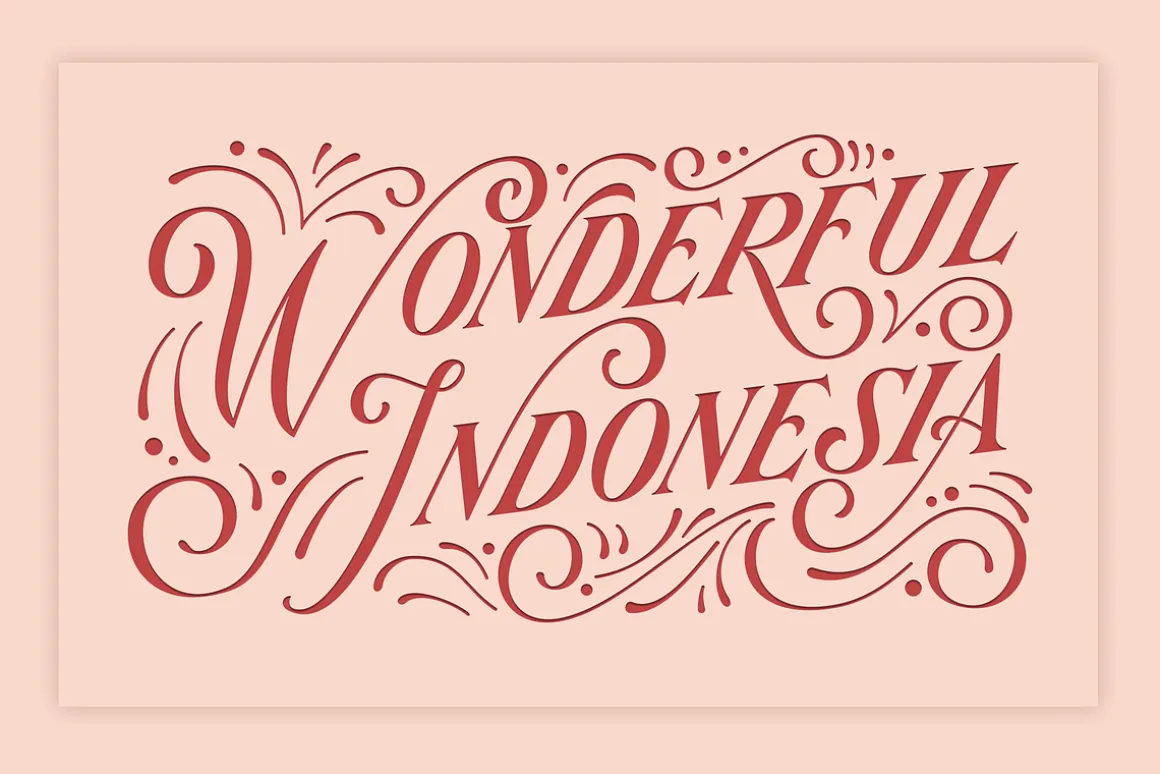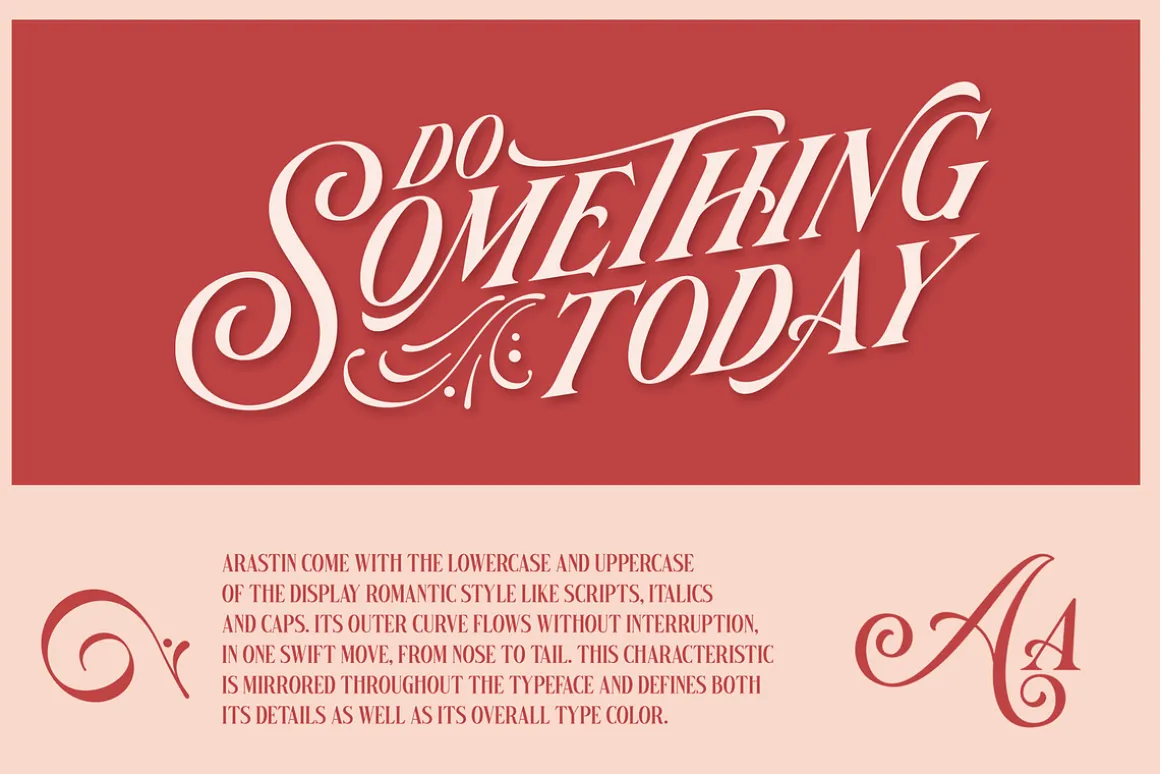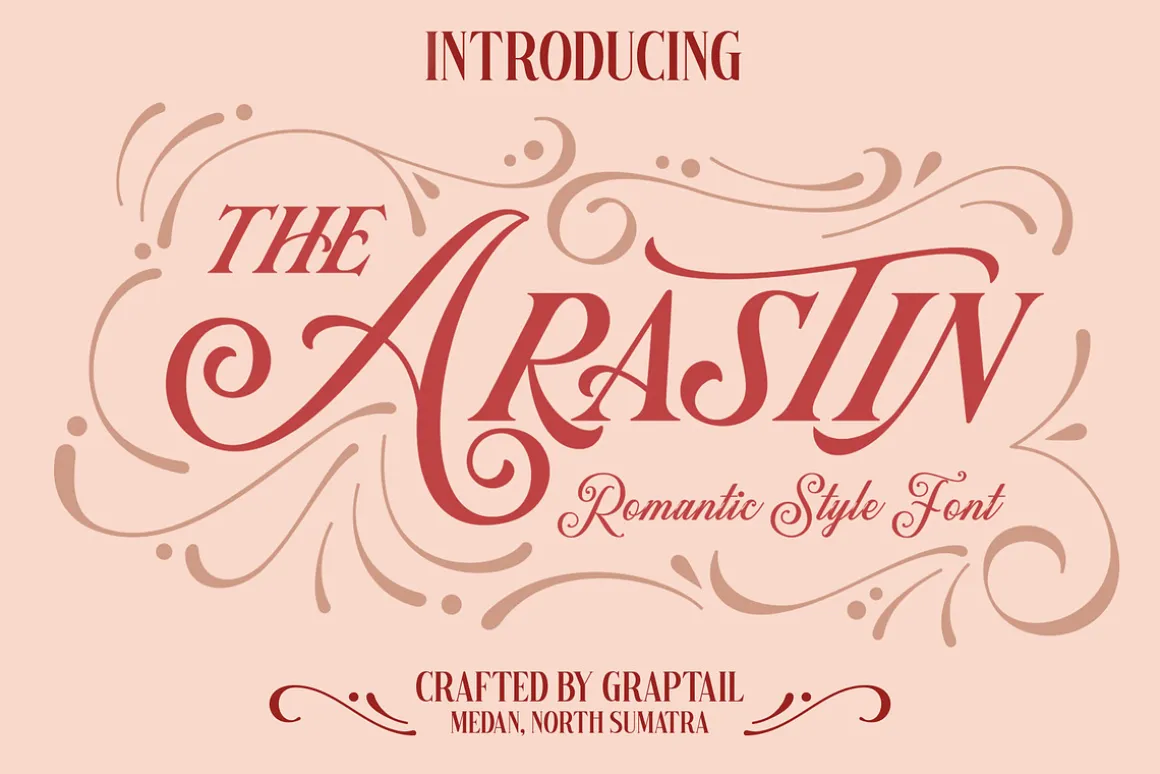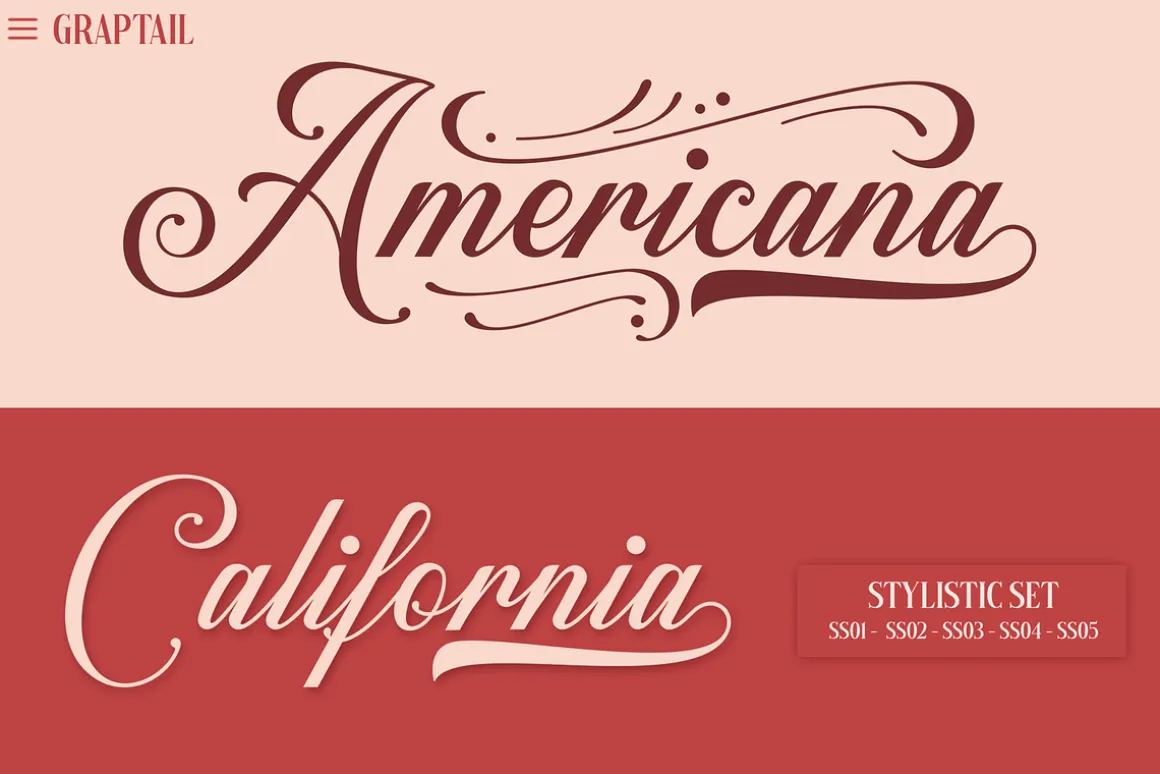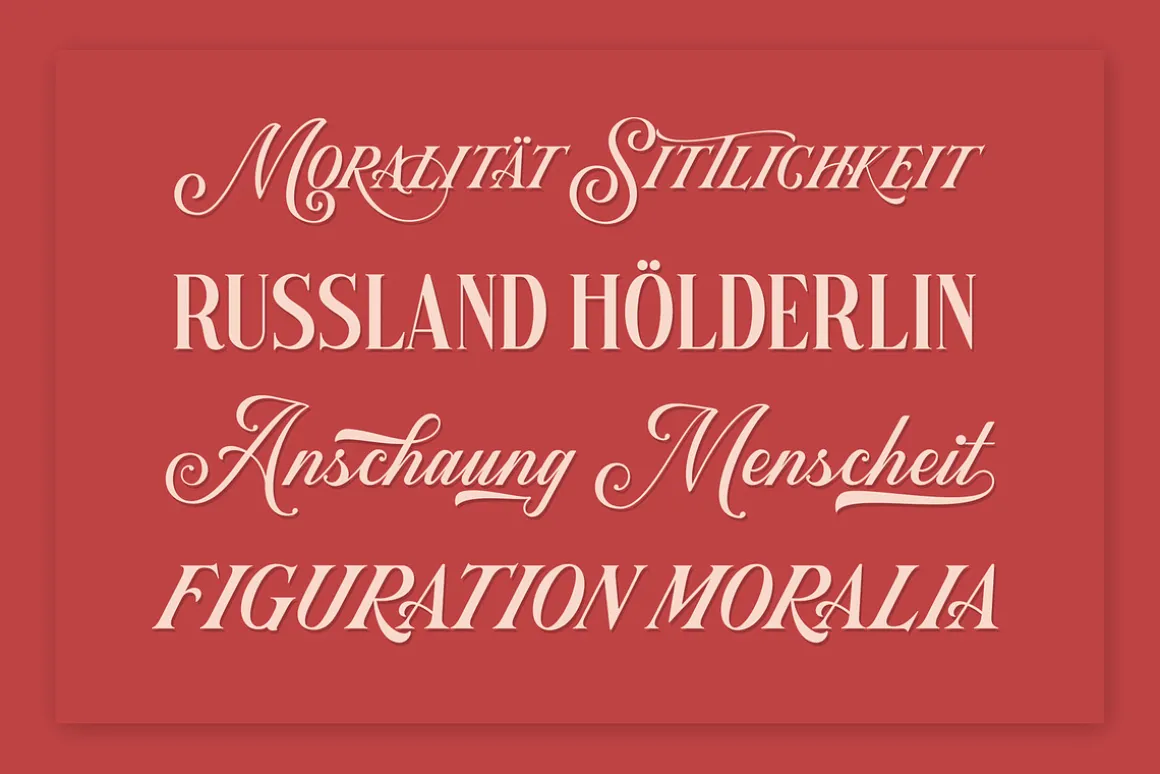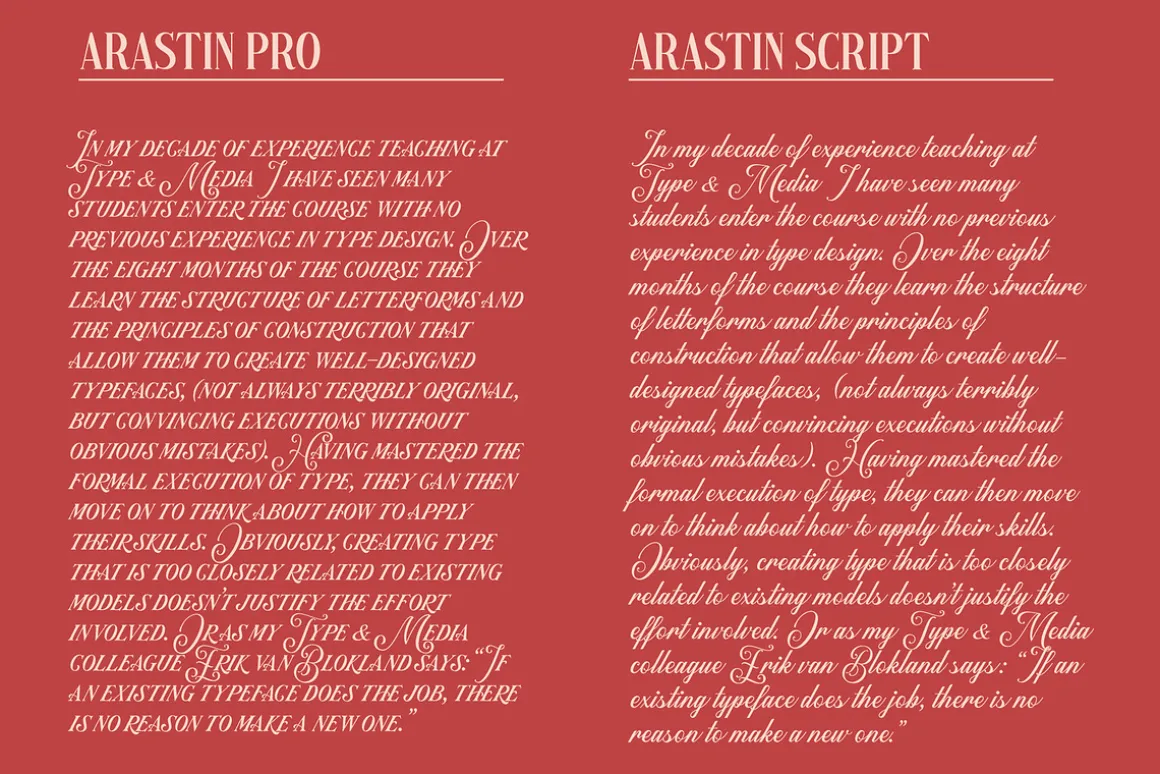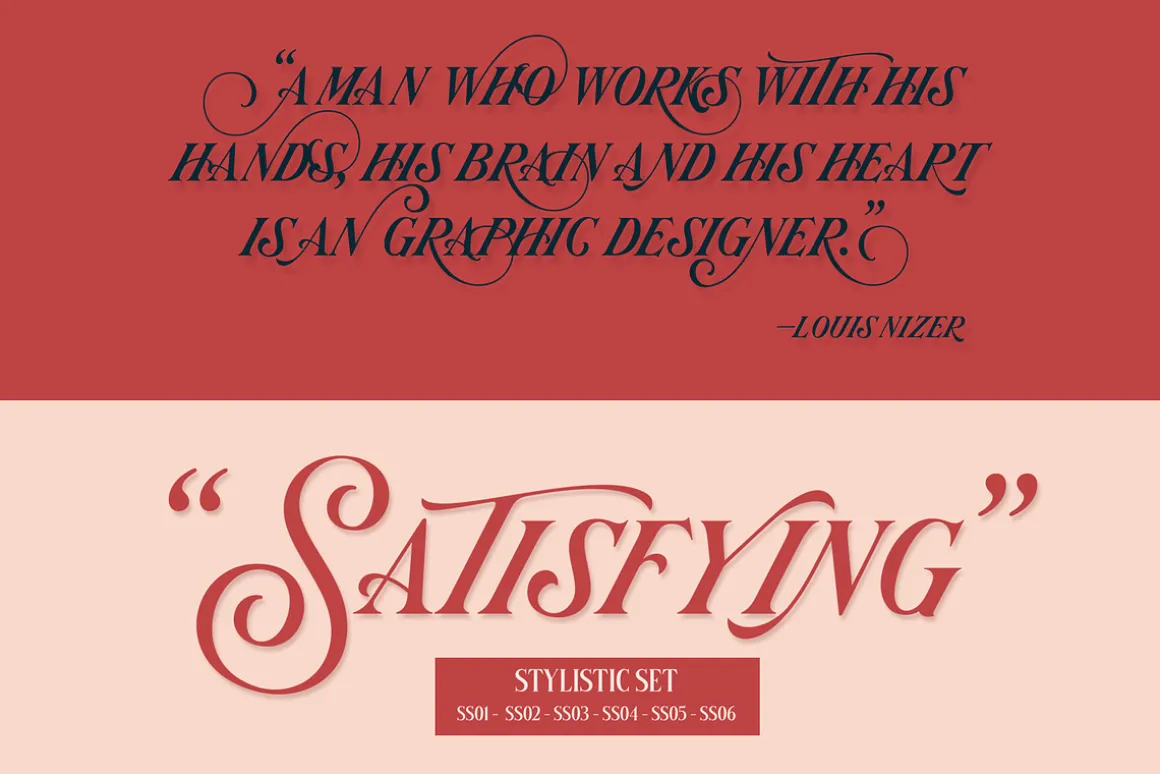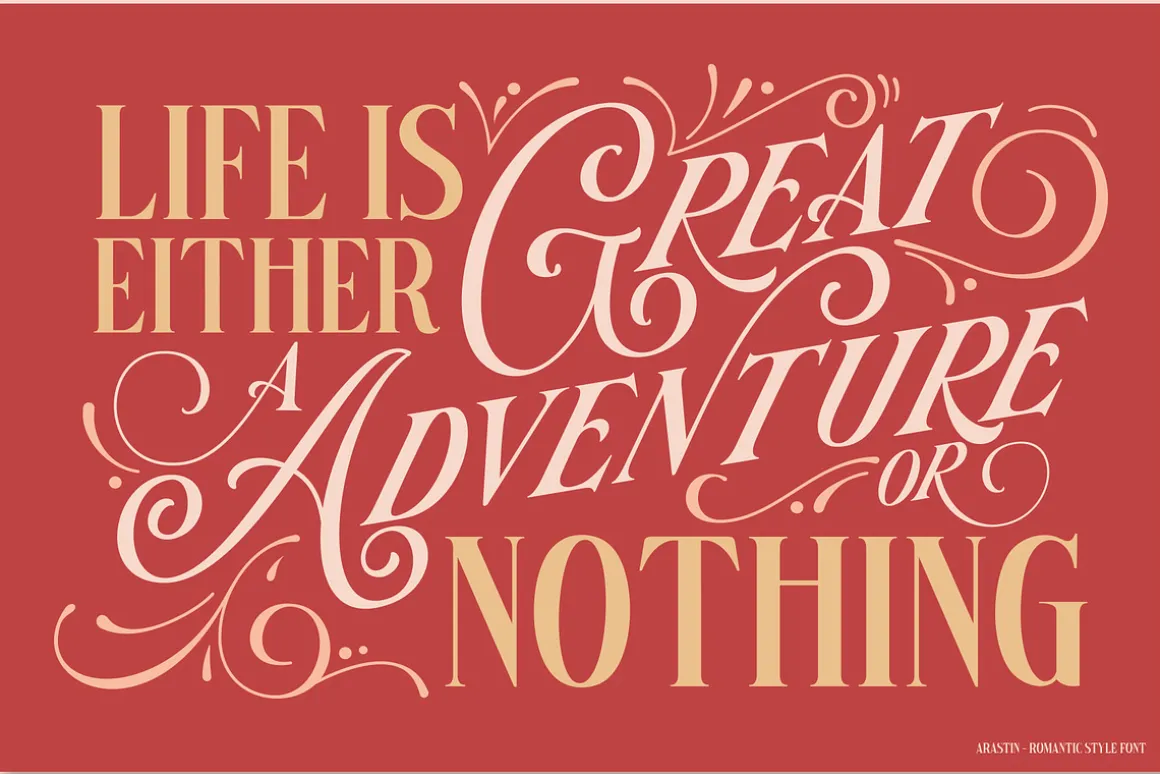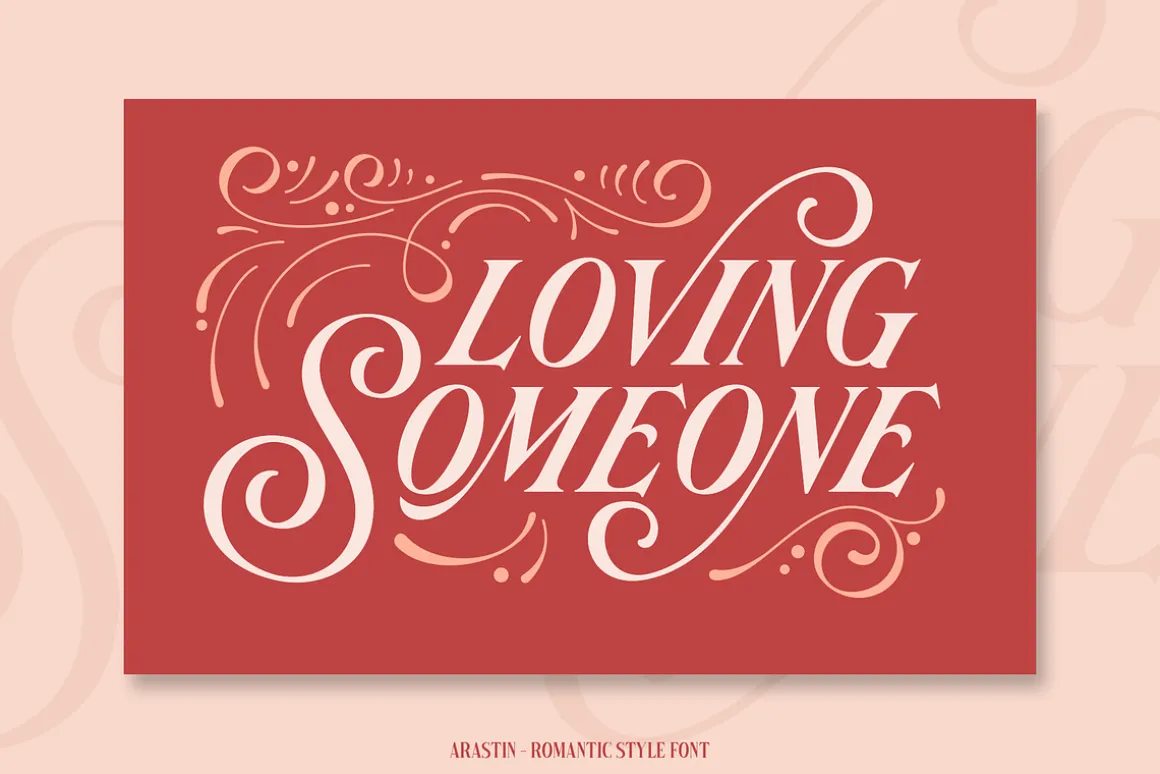
Arastin come with the lowercase and uppercase of the display romantic style like a script, italic, and caps. Its outer curve flows without interruption. In one swift move, from nose to tail. This characteristic is mirrored throughout the typeface and defines both its details as well as its overall type colour. Its wide range of stylistic alternates allows versatile design options and works perfectly for headlines, logos, posters, packaging, T-shirts, postcards and much more.
OPENTYPE FEATURES
- Stylistic Alternates
- Stylistic Set
- Contextual Alternates
- All Alternates